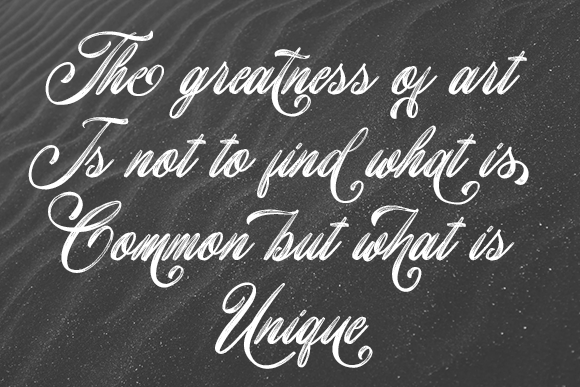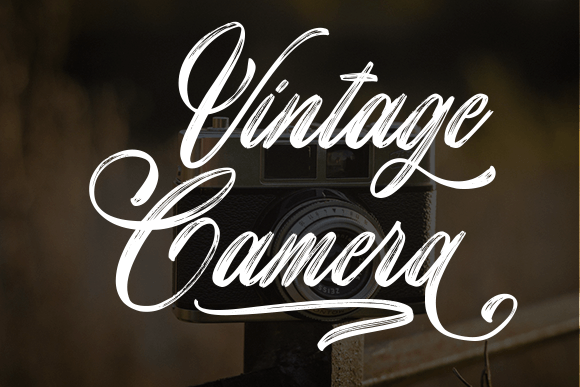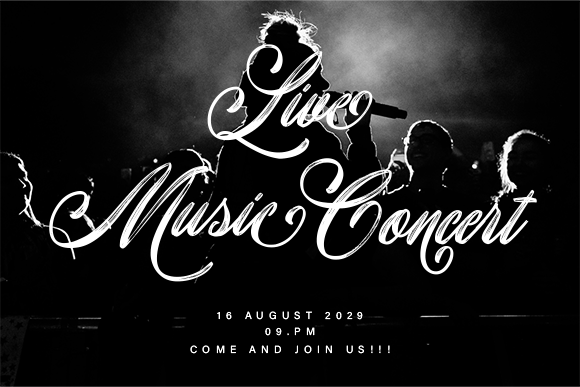
Introduction to Mourentina Font
As a designer, you know that sometimes the perfect font can make all the difference in bringing your creative project to life. Imagine you’re working on a new campaign for a client, and you need a font that exudes warmth and authenticity. You’re browsing through your design resources, searching for that perfect brush script font that will make your message stand out. And then, you stumble upon Mourentina Font – a meticulously crafted font that combines laid-back charm with a touch of artistic flair.
Mourentina Font is more than just a font – it’s a game-changer. With its high-quality brush style and transparent background, it’s the perfect design resource for creating eye-catching content that demands attention. Whether you’re designing a logo, a quote, or a product label, Mourentina Font is an ideal choice for adding that extra oomph to your design.
Key Features of Mourentina Font
- High-quality, elegant script font perfect for creative projects, making it an excellent design resource.
- Features a transparent background, ideal for designers who want to achieve a seamless integration with their designs.
- Available in a single weight, making it easy to use in a variety of design contexts.
- Designed to work well at high resolutions, ensuring that it remains clear and legible even at large sizes.
- Comes in a single font size, making it easy to use in a variety of design contexts.
Honest Review: Mourentina Font
As a designer, I’m always on the lookout for high-quality design resources that can elevate my creative projects. Recently, I stumbled upon the Mourentina Font, and I’m excited to share my honest review.
- ✨ The font’s unique, elegant design makes it perfect for creative projects that require a touch of sophistication.
- ✨ The high quality of the font ensures that it looks crisp and clear on both digital and print materials.
- ✨ The transparent background option allows for seamless integration with various design elements.
- ⚠️ The font only comes in a limited range of weights, which might not be suitable for projects that require a wide range of font styles.
Overall, I’m impressed with the Mourentina Font’s potential as a design resource. While it has some limitations, its unique design and high quality make it a great addition to any designer’s toolkit.
Tips for Getting the Most Out of Mourentina Font
For optimal results, use the Mourentina Font on a transparent background to give your design a clean and modern look. You can also experiment with different font sizes and styles to create a unique visual effect.
Common Use Cases for Mourentina Font
The Mourentina Font is a versatile design resource that can be used for a variety of creative projects, including logos, brochures, and social media graphics. Its high-quality design and transparent background make it an ideal choice for designers looking to create visually appealing and professional-looking designs.
Alternatives to Mourentina Font
Great Vibes Font is a beautiful, elegant script font perfect for creative projects that require a touch of sophistication. It’s ideal for wedding invitations, branding materials, and other design resources where a high-quality, handwritten font is desired. Great Vibes Font is a free download, making it an excellent alternative to Mourentina Font for designers on a budget. It features a transparent background and a wide range of language support.
Great Vibes Font is more elegant and refined compared to Mourentina Font, making it suitable for formal events and corporate branding. It lacks the playful, handwritten feel of Mourentina Font, but excels in its sophistication and elegance.
Is the Mourentina Font suitable for high-resolution printing?
Yes, the Mourentina Font is designed to be high-quality and suitable for printing at high resolutions. It includes advanced features like hinting and kerning, which ensure that the font looks crisp and clear even at small sizes or high zoom levels. However, it’s always a good idea to test the font at the intended resolution and size to ensure optimal results.